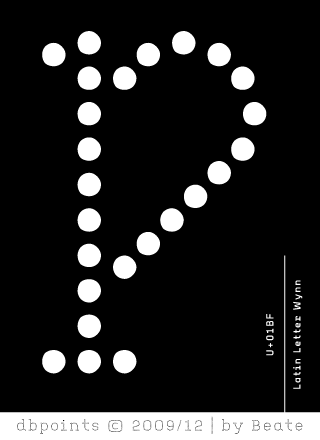
Superb!
Very good. I like it all except the 9...maybe make it an upside-down 6?
Wow... I love the way you worked curves into the design of several characters! I agree with aphoria that the 9 looks a bit awkward, though. Other than that, I think it's an excellent FontStruction!
The 9 fits in much better now. Good job.
Beautifully done, beate. You earned yourself a place in the Featured spot. I think the 'c' and 'e' could be wider and you could reduce the spacing a gridspace on the 'l', 'o', and 't'.
The 'i' dot and period are just right but I would reconsider the comma, apostrophe, and quotes. Consider doing these with dotted lines, not solid.
I am speechless. Very nice.
Very good one!
And excellent details once again.
Outstanding! I hate you! ;)
Great work!
Beautiful.
Makes me think of balls neatly arranged.
I really like the font, but the capital Greek letter Delta doesn't really fit in with the others. Have you tried using the A or Alpha as the base and just move down the bar?
I like all the letters-but the o is a little strange
wow...you did so many characters so beautifully!
Lovely!
The glorious new preview window reveals that you have quite an extensive character set, including some nice ligatures with a more conventional 's'. Could you offer that 's' as an alternate?
An alt 'o' without the trailing stroke would be well received too.
Really great set. I like the implication of subtle curves and this and the sans version.
I, for one, liked the original inspiration better. Especially the original "s". Now it seems "too cleaned up". Maybe the original should have been left available as "dbpoints alternate" and this be the new "dbpoints".
disco?
It's seems like you're a newbie here, but your skills and obvious interest and experience in viewing/creating type just deeply impressed me.
What a start on fs.com!!!
Beyond i'd like to tell you that
broadway wouldn't exist without this incredible work of YOURS!
btw...
ever thought of shifting those "oval parts" of "b" or "d" for example, into the vertical lines of them?
the circle would look entire and the apparent "too wide" looking width of some glyphs, would be done with one step...
Fantastic Work
The r is awesome, as most of the characters. I'm just not fond of the v and w, which would benefit from being more symmetrical.
really nice font! Probably my prefered dote typeface on fs!
¡Maravillosa, beate! Congratulations. It's just BEAUTIFUL.
just beautiful
Usually I find dot fonts rather boring, but this one is awesome! 10/10